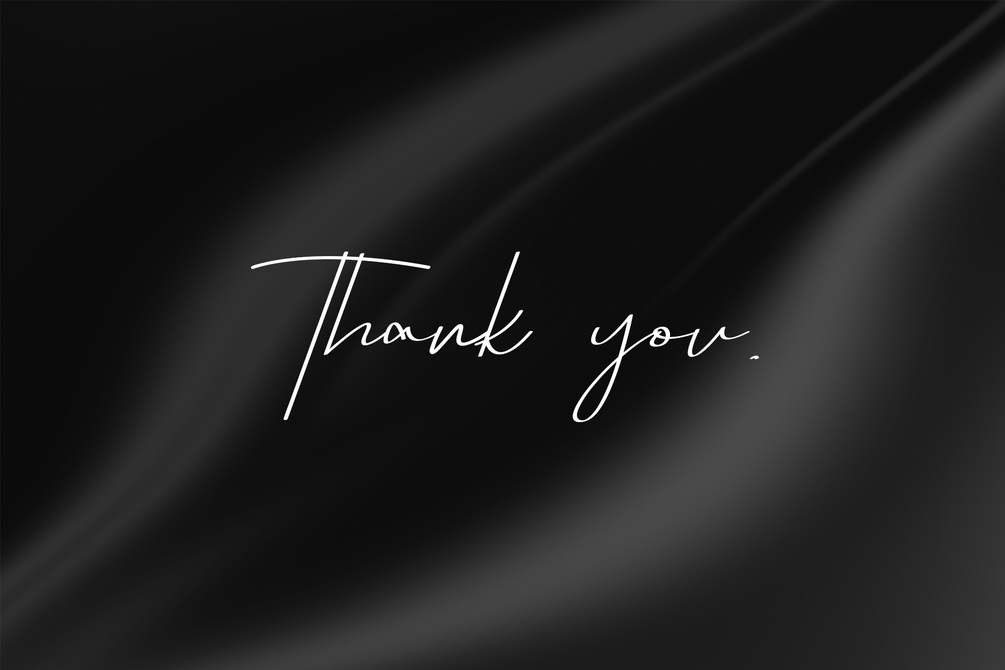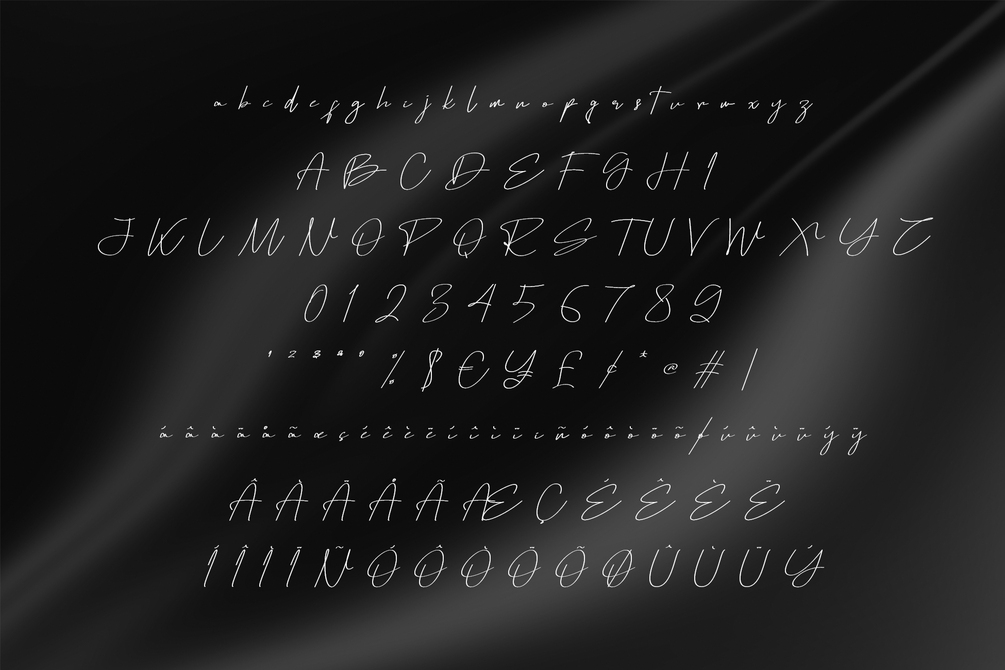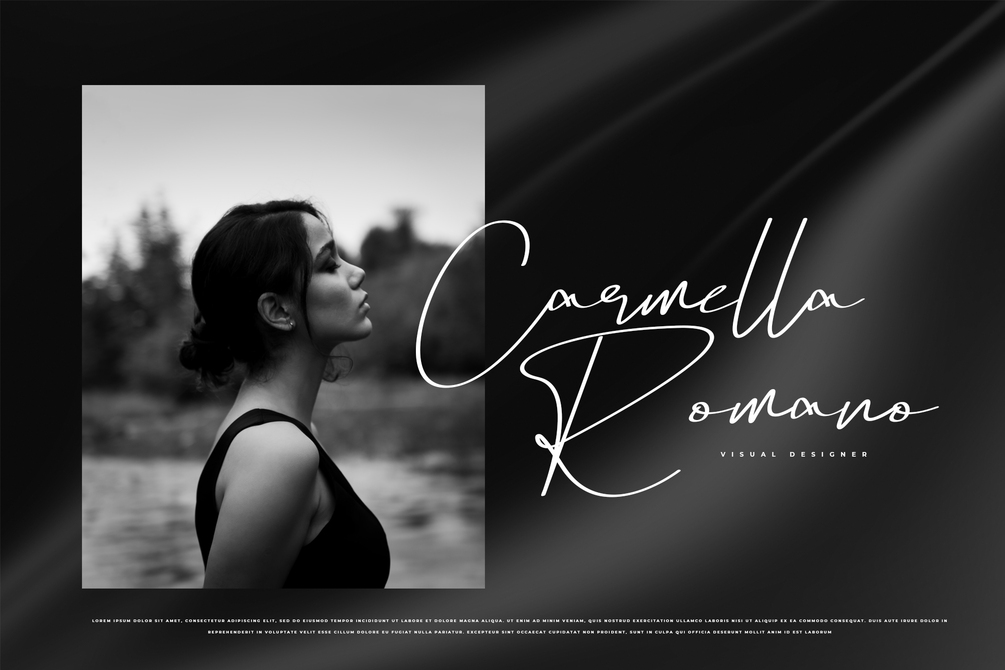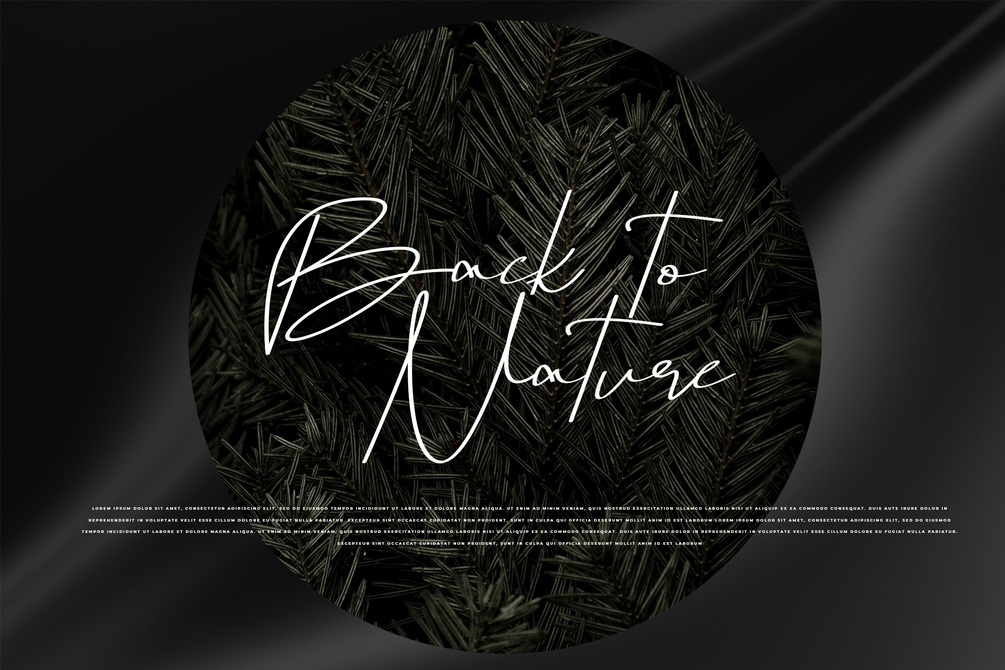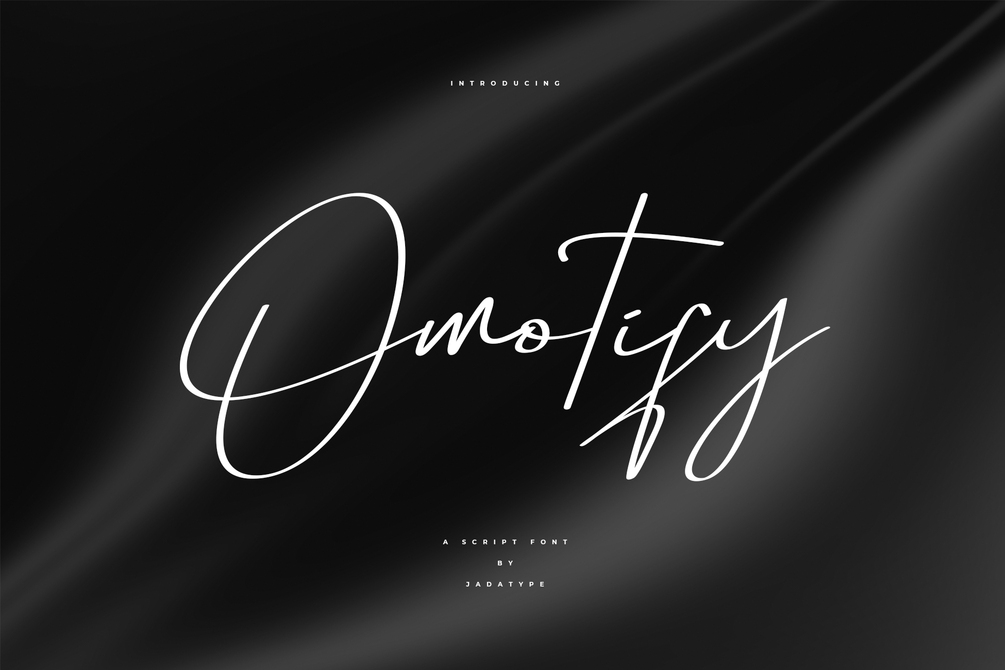
Omotify Font
Omotify is a font with a stylish line. suitable for logotype, branding, music cover, social media, products, handwritten, and so on. contains standard English letters, numbers, punctuation, and several accents that support multilingualism.